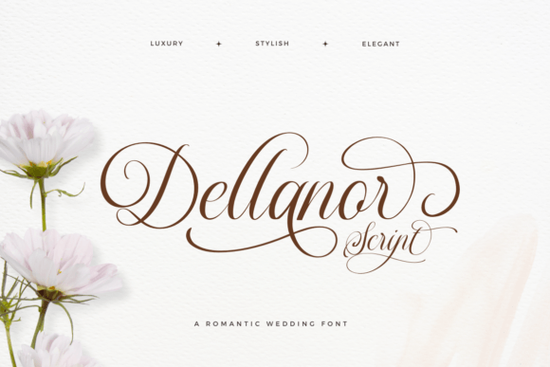
If you're designing wedding invitations, elegant event signage, or romantic boutique packaging, the Dellanor Script Font is a thoughtful, well-crafted option that balances ornate detail with readability. It’s not overly fussy each letter has graceful curves and subtle flourishes that feel intentional, not distracting. You’ll notice it works especially well at larger sizes (think 36–72 pt), where its decorative alternates really shine, but it holds up nicely in mid-size headings too. Unlike some script fonts that blur together at smaller scales, Dellanor keeps clarity without sacrificing charm.
When does Dellanor Script work best?
This font shines in contexts where warmth and intention matter more than neutrality. Think: hand-calligraphed-style wedding stationery, boutique skincare labels, engraved-style menu cards for intimate dinners, or even monogrammed gift tags for bridal showers. It’s designed for moments people pause over not skim past. Because it includes multiple stylistic alternates (like swash capitals and contextual ligatures), you can fine-tune how “romantic” or “refined” the final text feels, depending on your project’s tone.
For example, swapping out the default capital “D” for a more elaborate alternate version adds instant personality to a couple’s names on an invitation. Or using a connected lowercase “f” + “l” ligature softens the rhythm of a phrase like “forever love.” These small details help avoid repetition and make your design feel hand-tailored, not templated.
How does it compare to other popular wedding scripts?
Like Wedding Beauty Font, Dellanor leans into elegance but with slightly more contrast between thick and thin strokes, giving it a quieter luxury. It’s less bubbly than Baby Handwrite Font, which suits baby showers or whimsical branding better. And while Cralione Script offers bolder energy for modern invites, Dellanor feels more timeless closer in spirit to classic engraved lettering than digital brushwork.
If you’ve used Van Marigella Font, you’ll recognize Dellanor’s attention to spacing and rhythm it avoids awkward gaps or collisions common in less-polished scripts. And unlike Rose Cake Font, which leans sweet and dessert-themed, Dellanor stays versatile enough for high-end beauty brands or artisanal stationery shops not just weddings.
- Uppercase & lowercase letters with 3–5 alternates each
- Ligatures for common letter pairs (like “th”, “st”, “ct”)
- Swash capitals for emphasis or initials
- Numbers, punctuation, and multilingual support (including basic Latin-1 accents)
Who’s this font really for?
It’s ideal if you’re a small business owner creating your own brand assets say, a florist designing seasonal promo cards or a calligrapher offering digital templates. Hobbyists who make personalized gifts (think engraved wooden coasters or foil-stamped bookmarks) will appreciate how smoothly it pairs with serif or sans-serif body fonts. Designers building Canva templates for Etsy sellers also find it reliable: it previews cleanly across devices and exports crisply as PNG or PDF.
One note: because of its delicate strokes, avoid using Dellanor for tiny body text (under 14 pt) or low-resolution web use (like email headers viewed on older phones). It’s meant to be seen and savored not scanned.